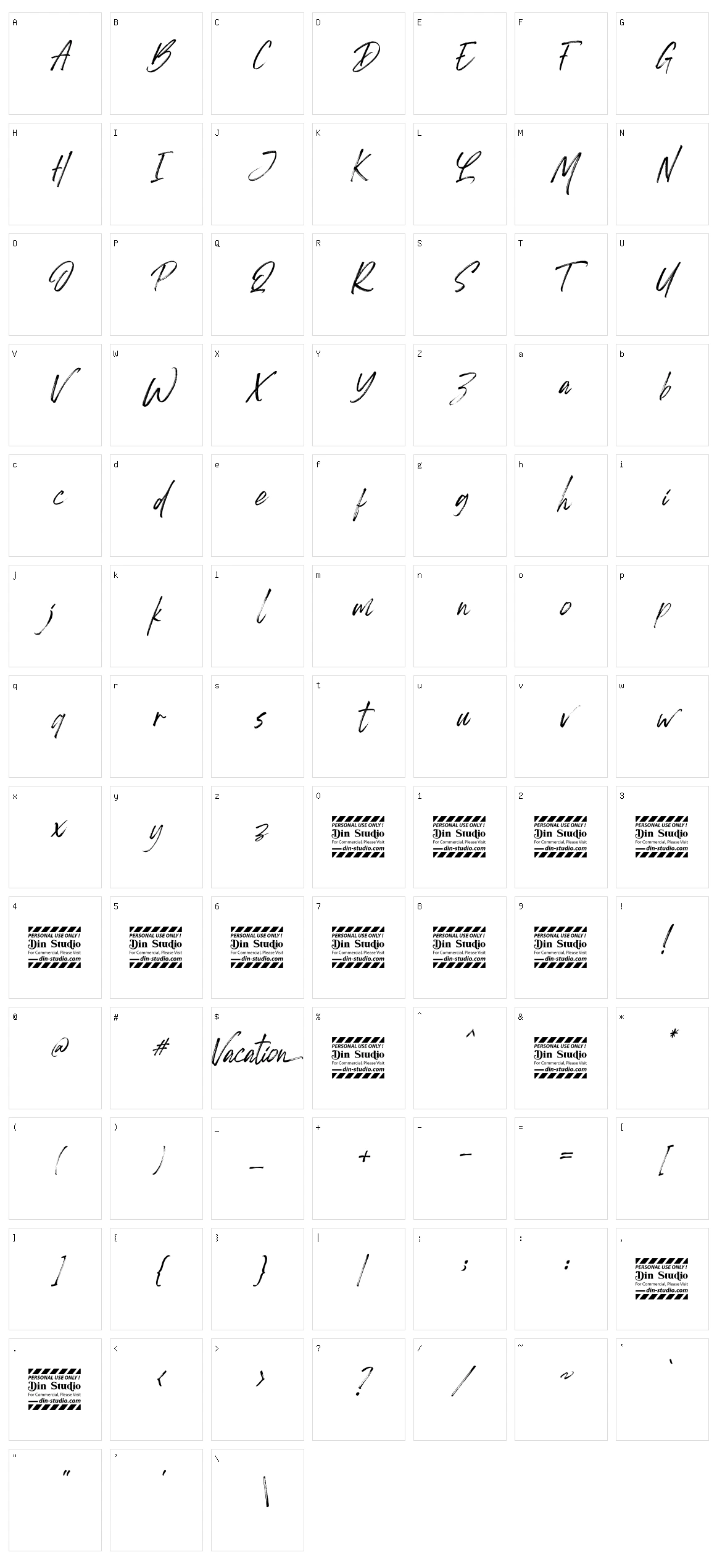
The free font Monday Vacation is carefully designed by Din Studio, showcasing a thoughtful balance of creativity and usability and falls under the Script font style. When you download the ZIP file, it contains only 683.07 KB of font files, making it lightweight and quick to download. Please review the license details below to understand permitted usage and distribution rights. If license information is not available, we recommend using this font for personal projects only or contacting the author directly for commercial usage permissions.